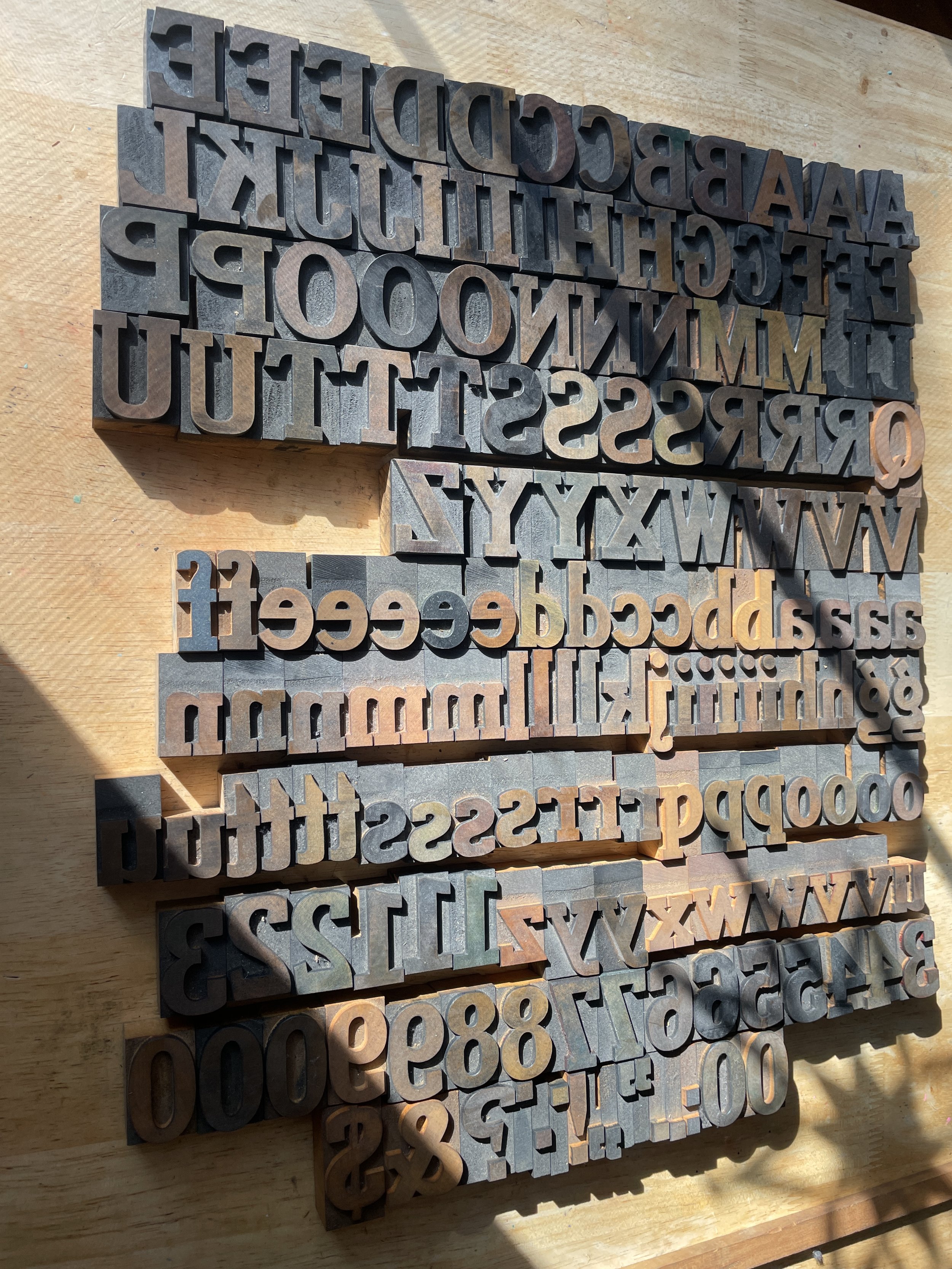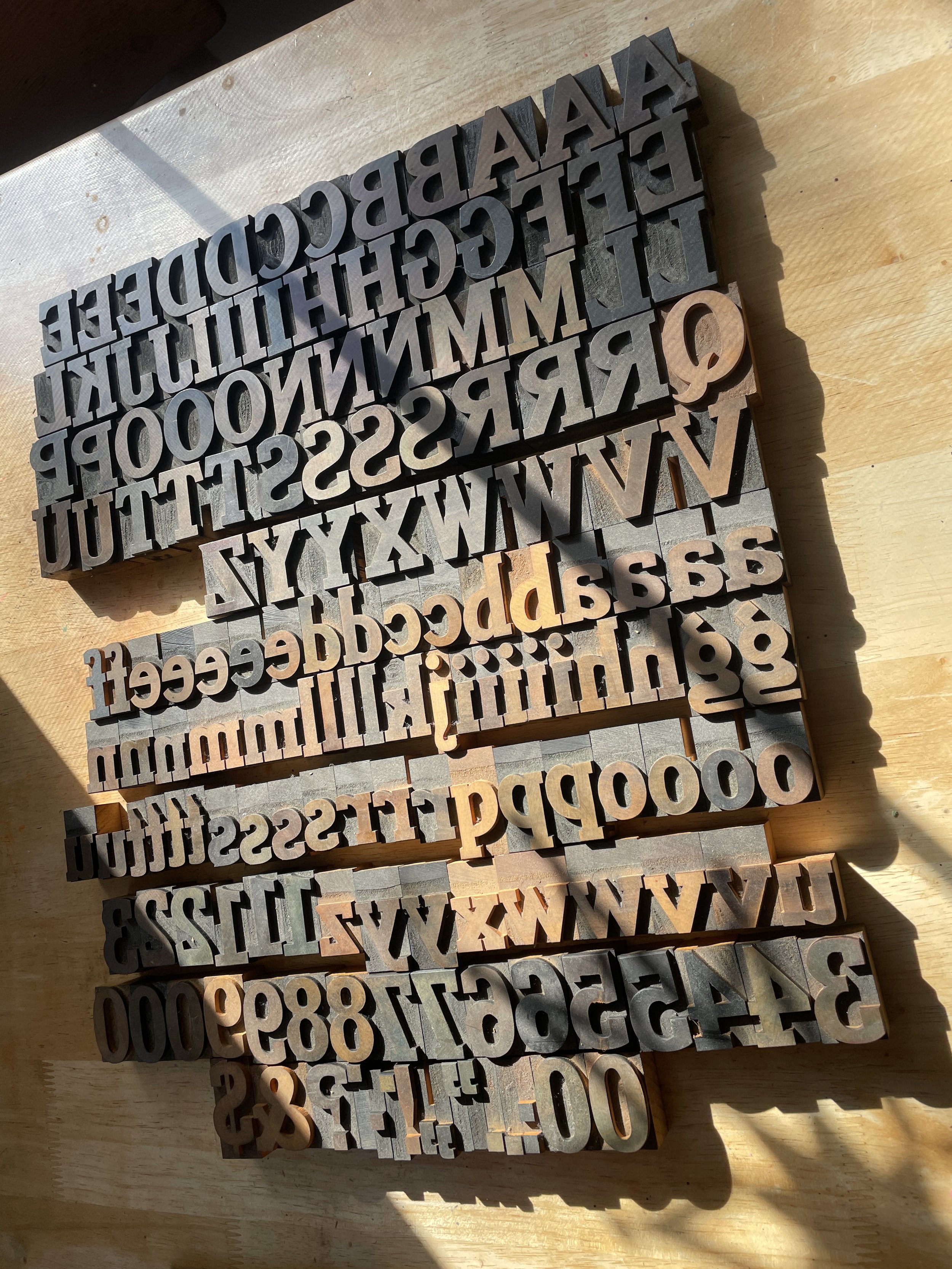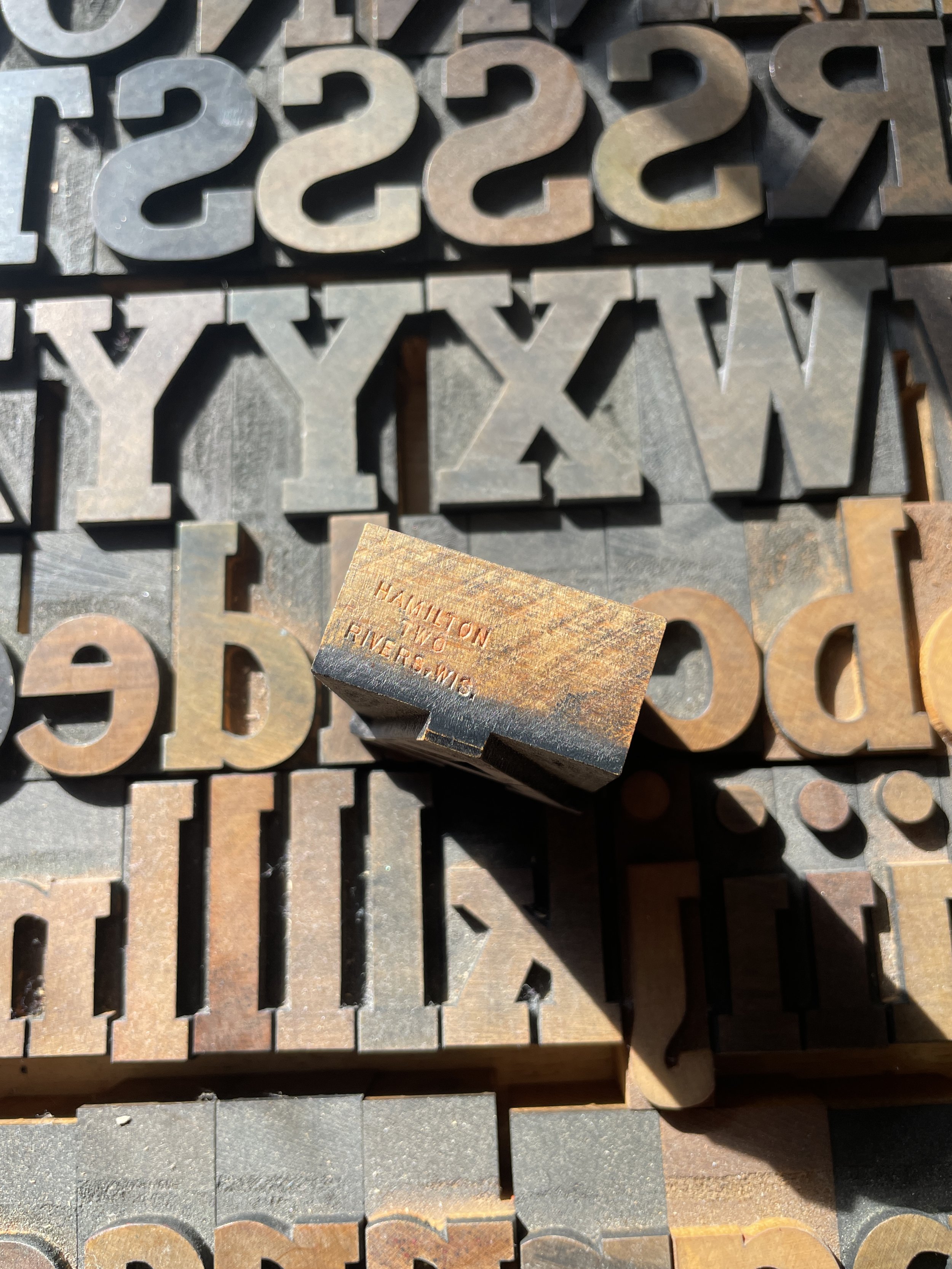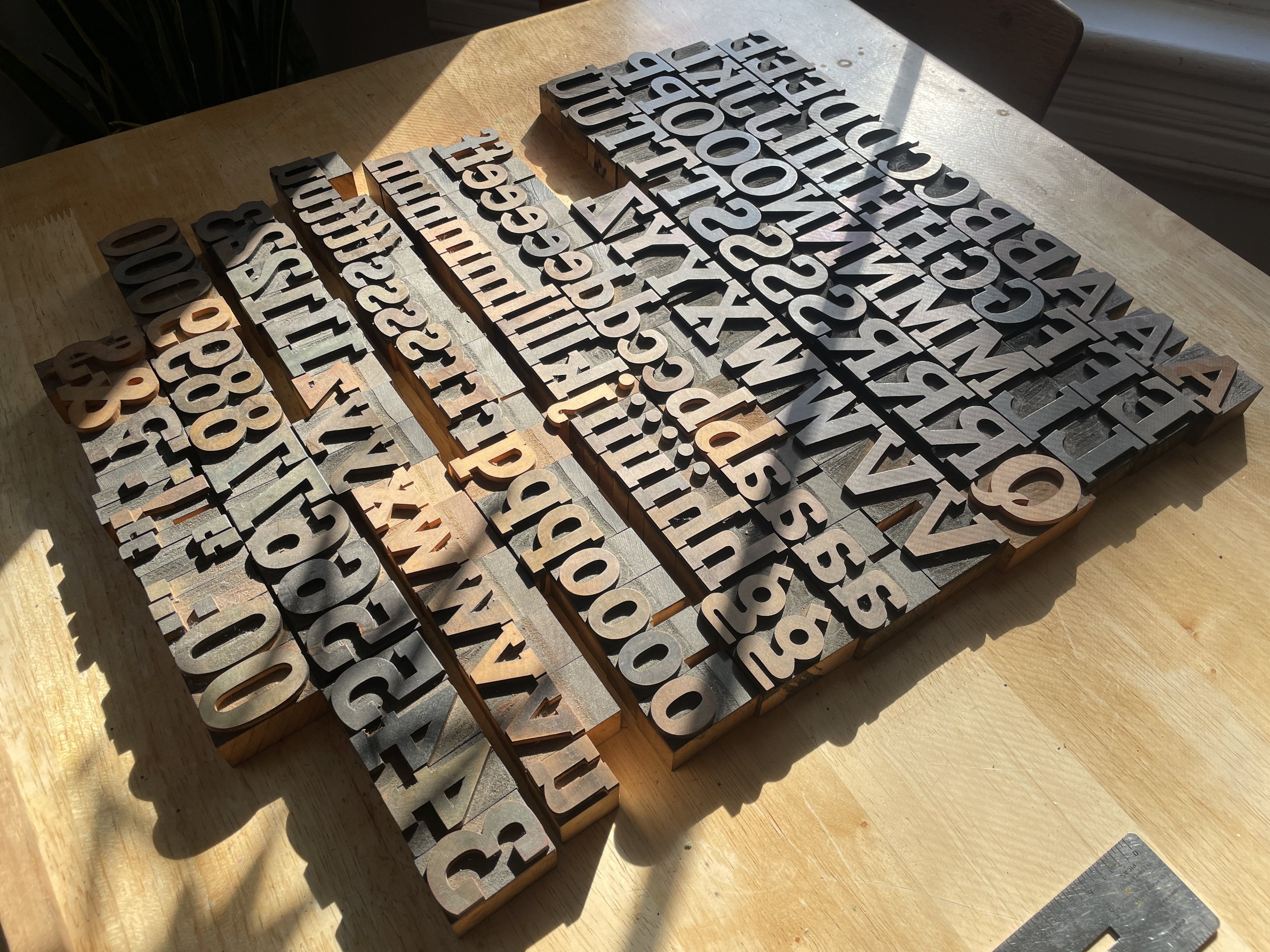
10 Line Hamilton Serif Wood Type Font (W47)
A beautiful early twentieth century Hamilton 10 line serif wood type with upper and lowercase. Includes all shown.